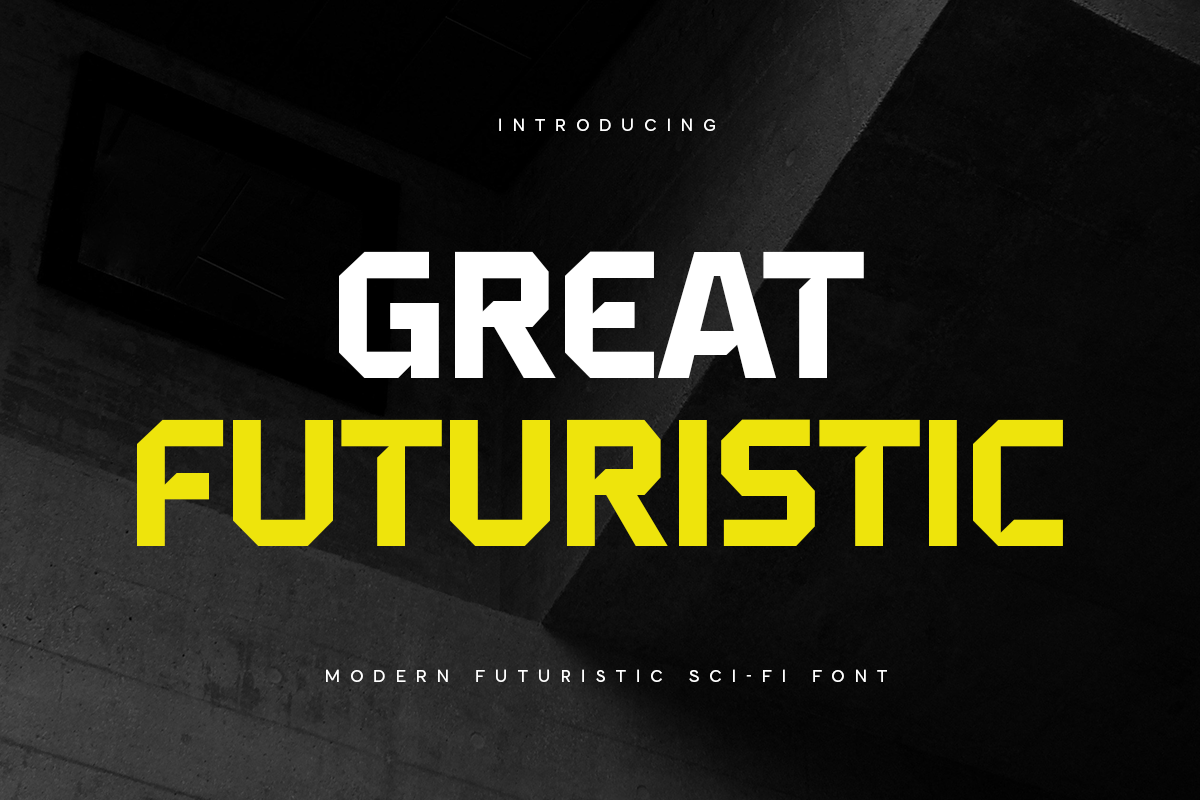
Great Futuristic - Modern Scifi Font
Command attention with Great Futuristic – a cutting-edge techno font designed for tomorrow's boldest projects. This modern futuristic typeface delivers the perfect blend of technology and style, crafted specifically for logos, titles, and standout typography that demands notice. Whether you're designing for technology brands, sci-fi films, space themes, or futuristic concepts, this font brings your vision to life with contemporary appeal. Great Futuristic features all-caps characters with unique...